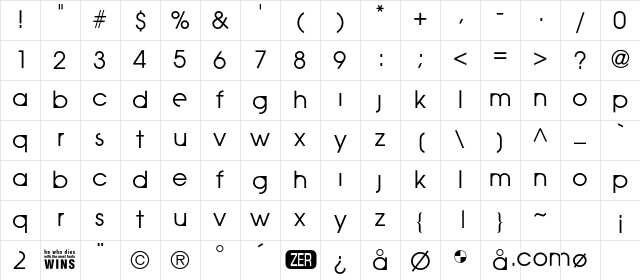
SeraphicOrganism Regular Free Font
SeraphicOrganism Regular
Design Context for SeraphicOrganism
SeraphicOrganism is a composed and adaptable typeface that performs quietly and consistently across a wide range of design contexts.